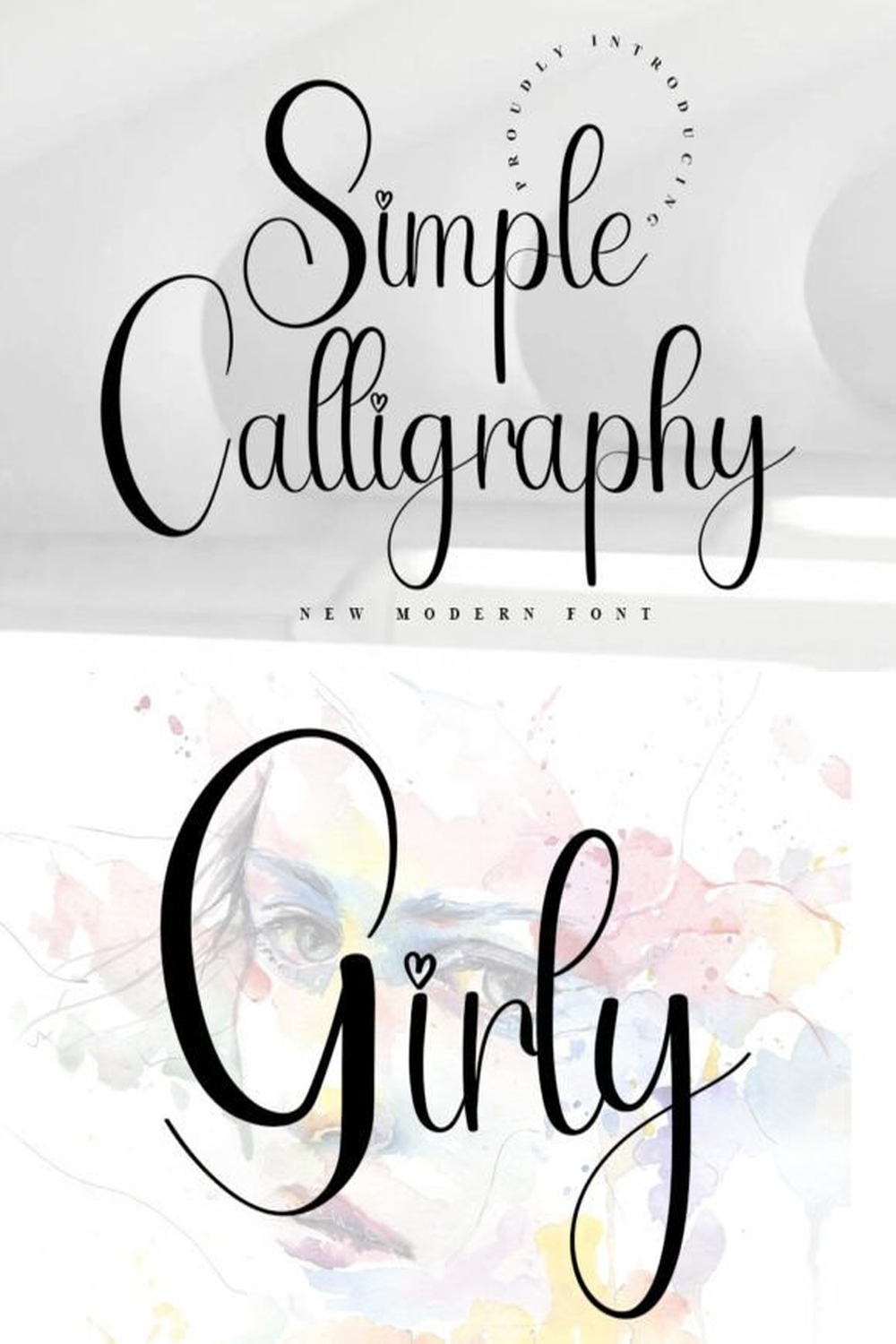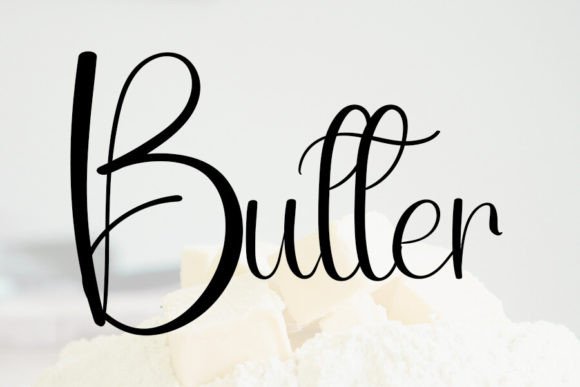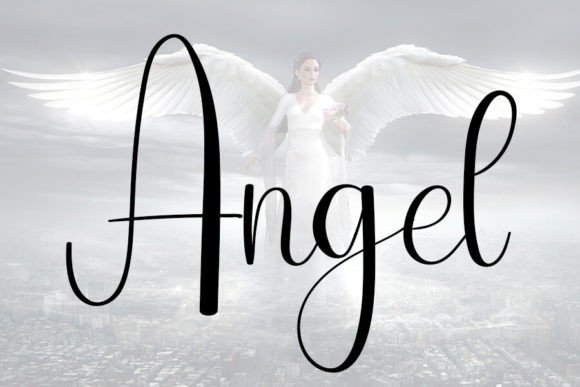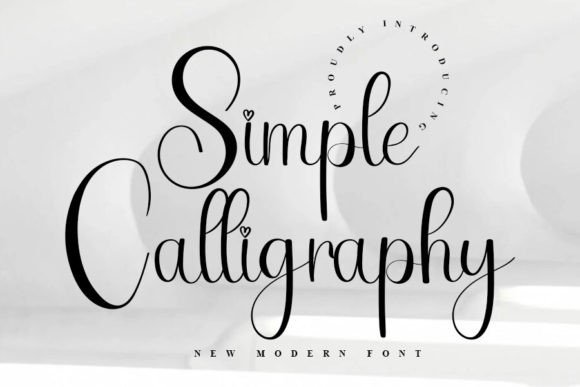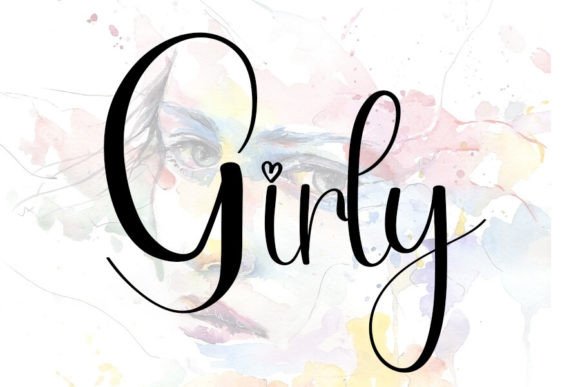
Simple Calligraphy Font
About the Simple Calligraphy Font
Presenting Simple Calligraphy Font, a unique and stylish typeface that will make your work stand out. Simple Calligraphy is a charming handwritten font exuding a casual and relaxed vibe. Its playful strokes and irregularities capture the essence of spontaneity and creativity. Perfect for adding a personal touch to invitations, cards, and social media posts, this font brings warmth and friendliness to any project.